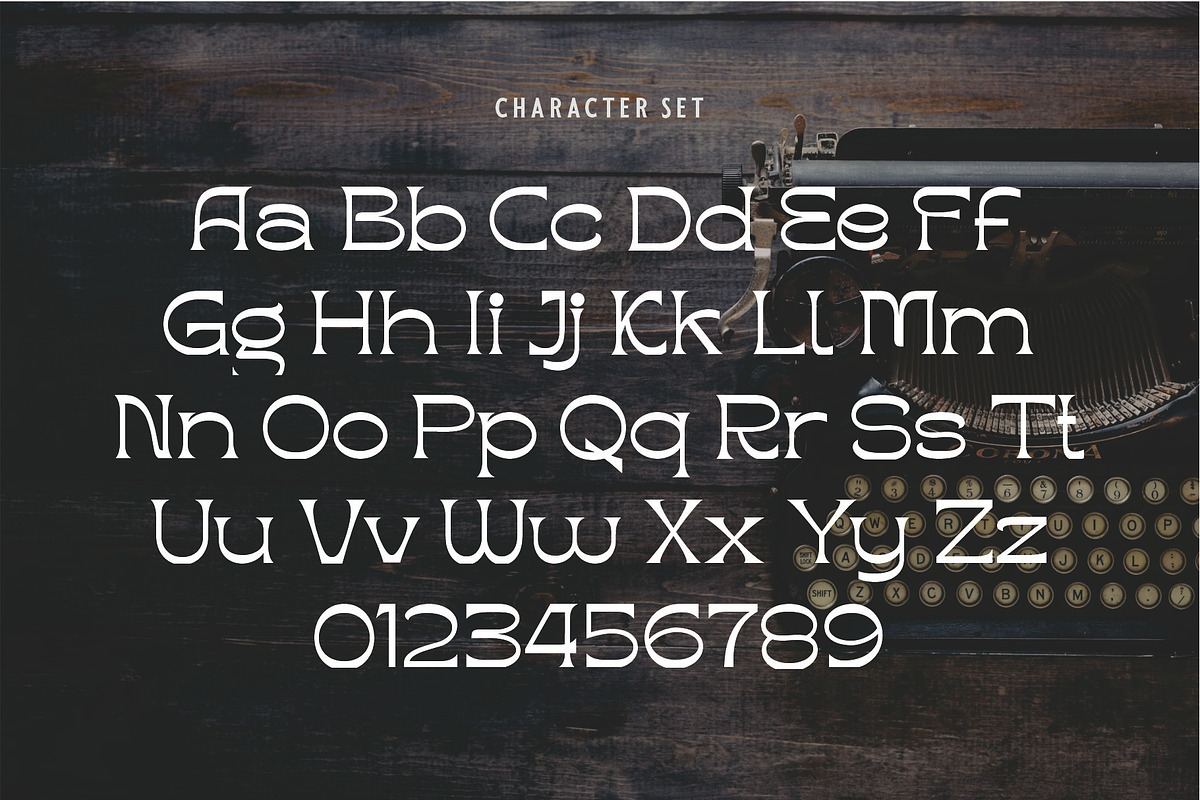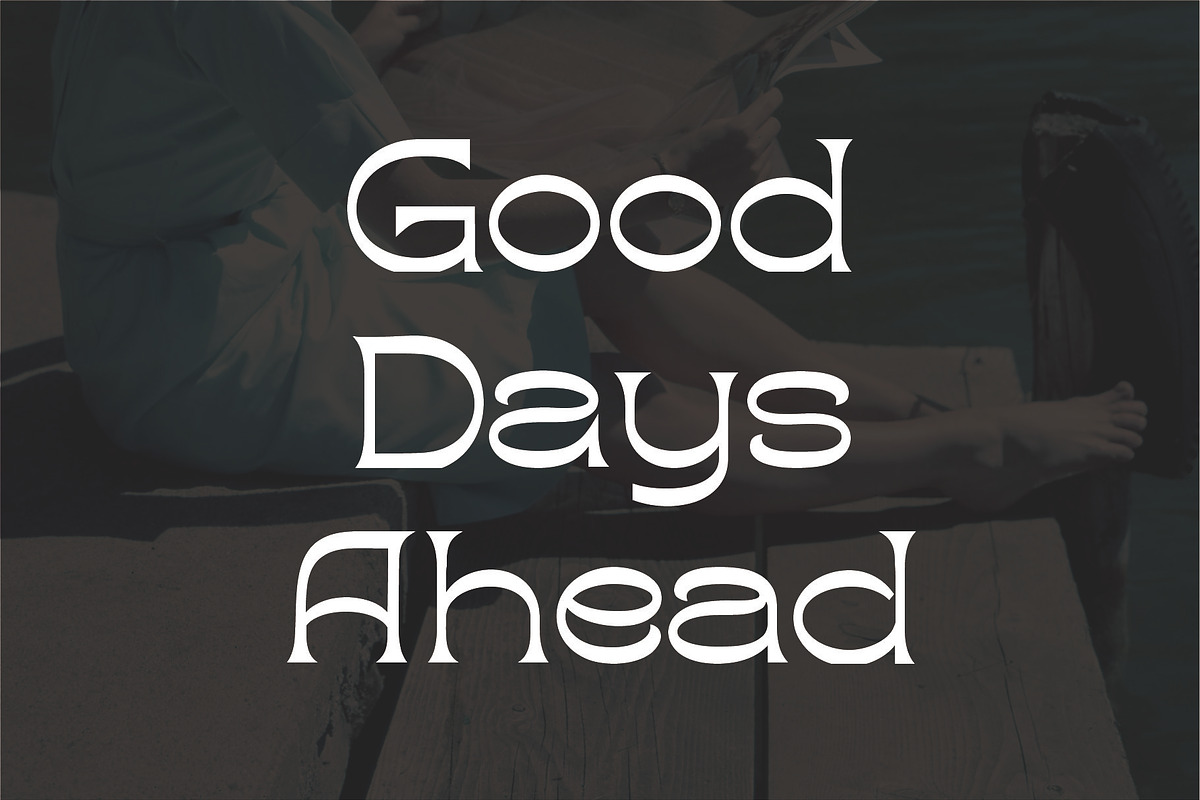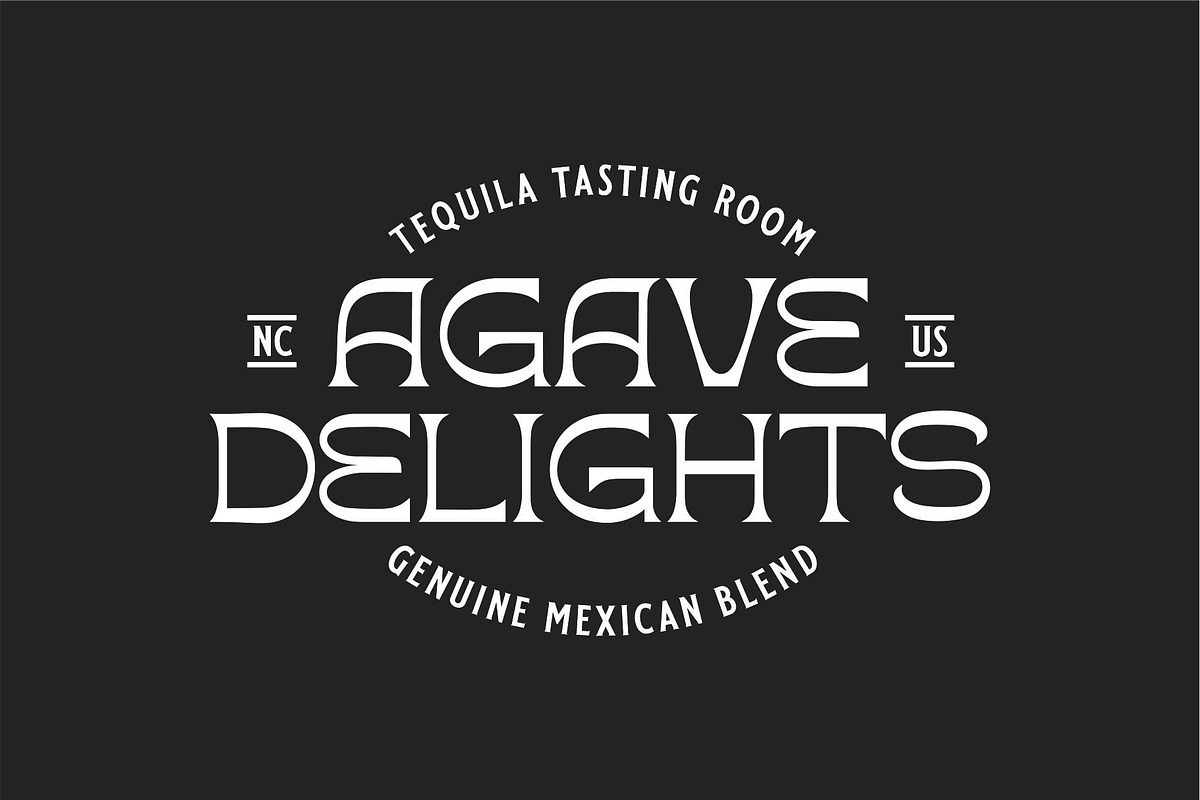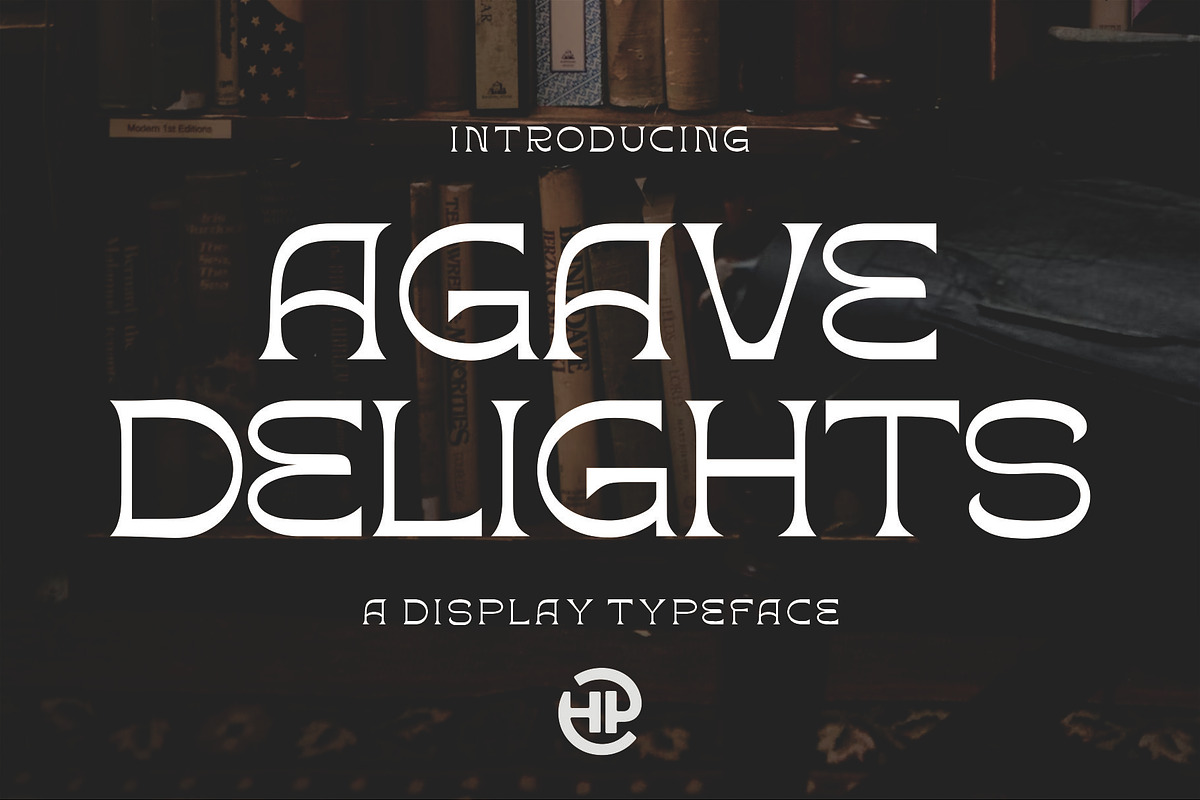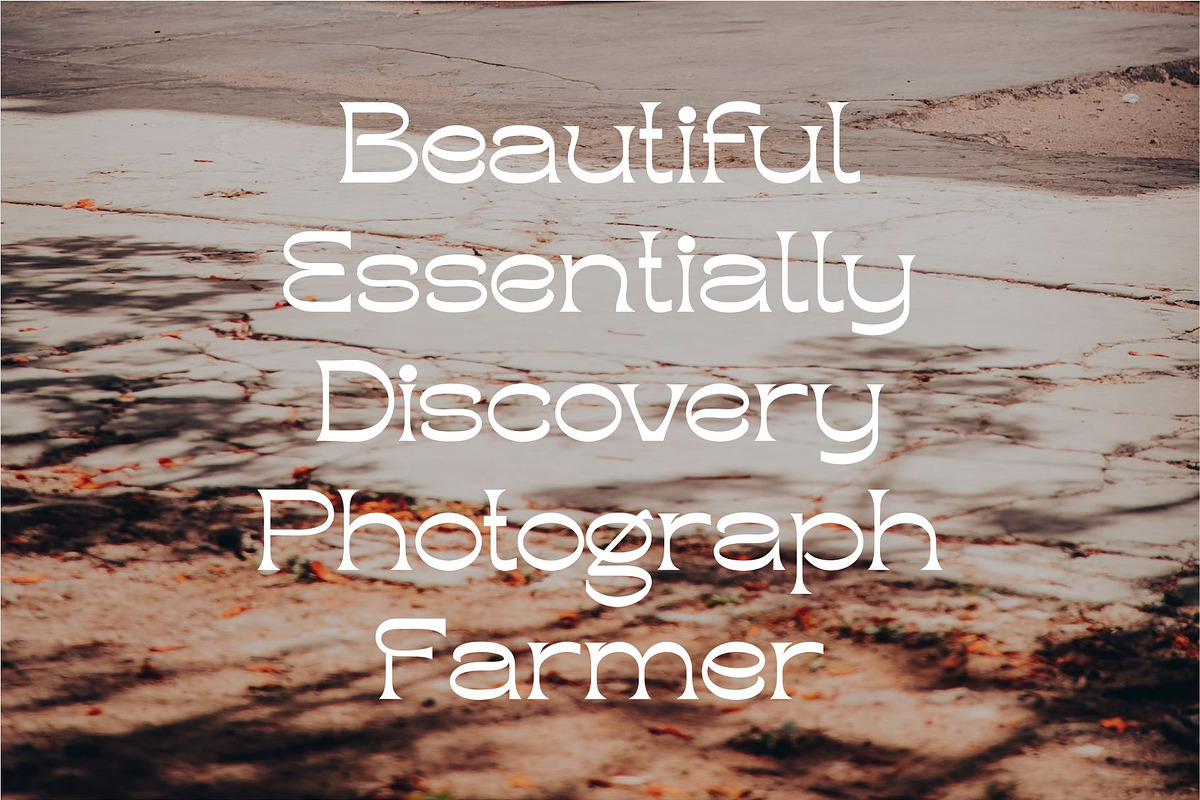
AGAVE DELIGHTS - Display Typeface
This font is perfect for branding, logos, social media, prints, stickers, shirts, and more!Agave Delights is unique as it can be used for a variety of design styles. It fits in wonderfully for free-spirited and also for more classy editorial looks!